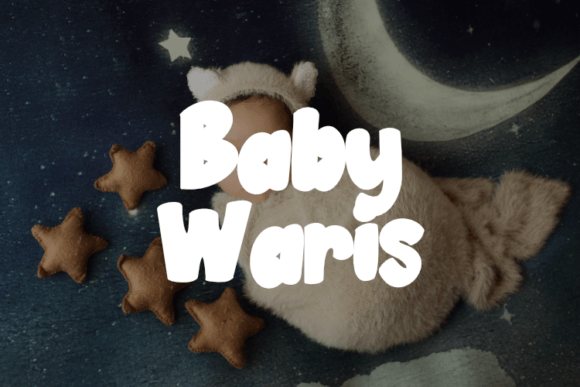
Baby Waris Font: Elevate Your Designs with Style and Versatility
In the world of design, the right font can make all the difference. Whether you’re a professional designer or a crafty DIY enthusiast, finding the perfect typeface to bring your creations to life can be a daunting task. That’s where Baby Waris comes in – a stylish and versatile font designed specifically for fashioning clothing designs, t-shirts, and a wide range of other products.
Unleash Your Creativity with Baby Waris
Baby Waris is more than just a font – it’s a design statement. With its unique charm and adaptability, this typeface is perfect for anyone looking to add a touch of elegance and sophistication to their designs. From fashion designers to crafters, Baby Waris is the perfect companion for any creative project.
Key Features of Baby Waris Font
- Versatility: Baby Waris is designed to be adaptable and versatile, making it perfect for a wide range of design applications, from clothing designs and t-shirts to posters, flyers, and more.
- Unique Charm: This font boasts a unique and stylish aesthetic that’s sure to elevate your designs and make them stand out from the crowd.
Why Choose Baby Waris Font?
With so many fonts available, why choose Baby Waris? Here are just a few reasons why designers and crafters are falling in love with this versatile typeface:
- Easy to Read: Baby Waris is designed to be easy to read, making it perfect for designs where clarity is key.
- Professional Results: Whether you’re a professional designer or a DIY enthusiast, Baby Waris helps you achieve professional-looking results that will leave a lasting impression.
Design Possibilities with Baby Waris
The design possibilities with Baby Waris are endless. Here are just a few ideas to get you started:
- Fashion Designs: Use Baby Waris to create stunning fashion designs, from elegant logos to stylish typography.
- T-Shirt Designs: Add a touch of style to your t-shirt designs with Baby Waris, perfect for creating eye-catching graphics and text.
- Posters and Flyers: Use Baby Waris to create striking posters and flyers that grab attention and communicate your message effectively.
- Branding and Packaging: Elevate your brand with Baby Waris, perfect for creating professional-looking packaging and branding materials.